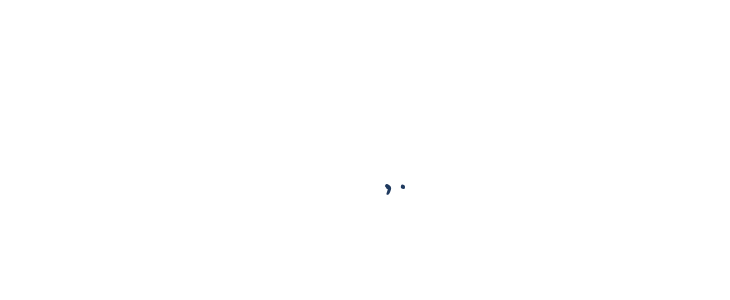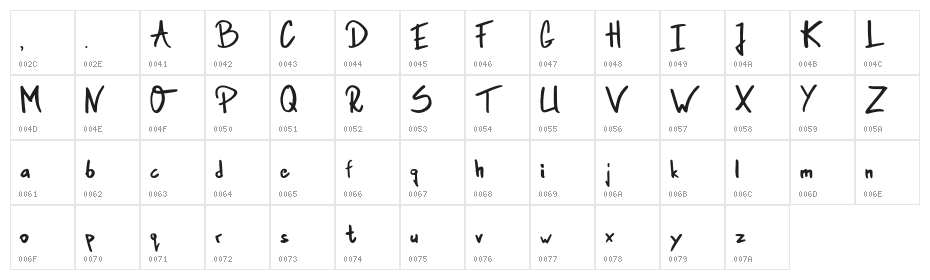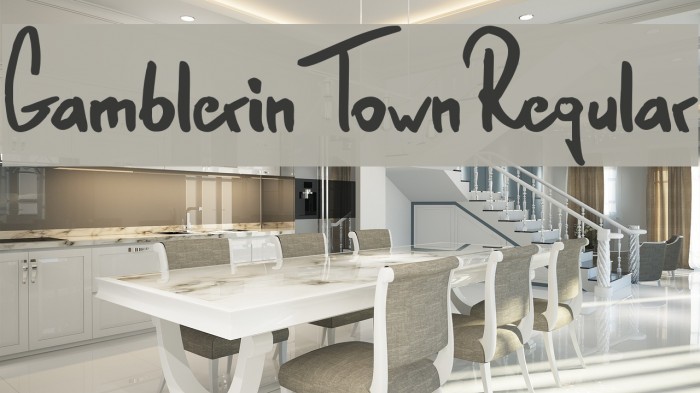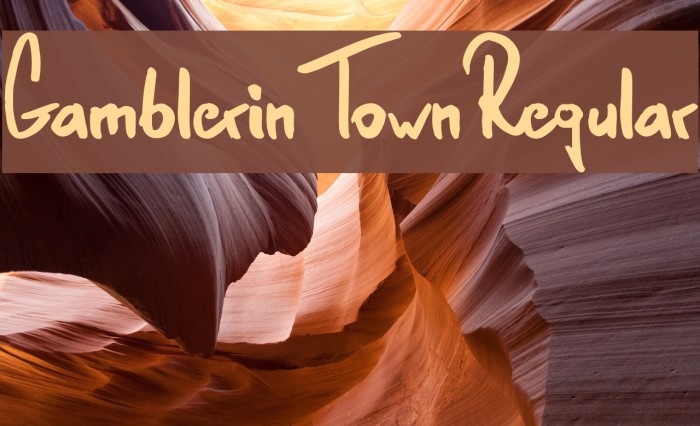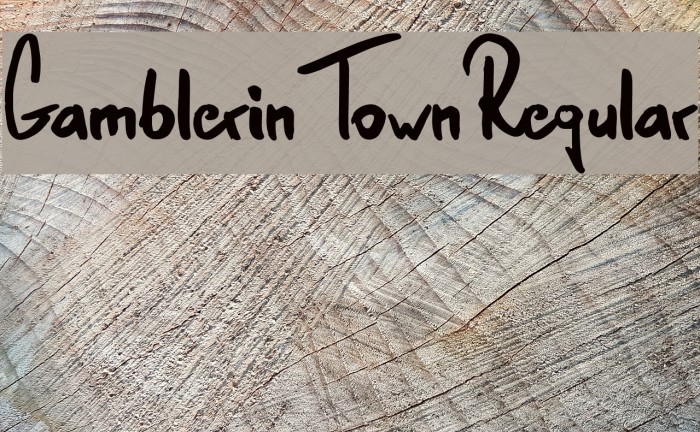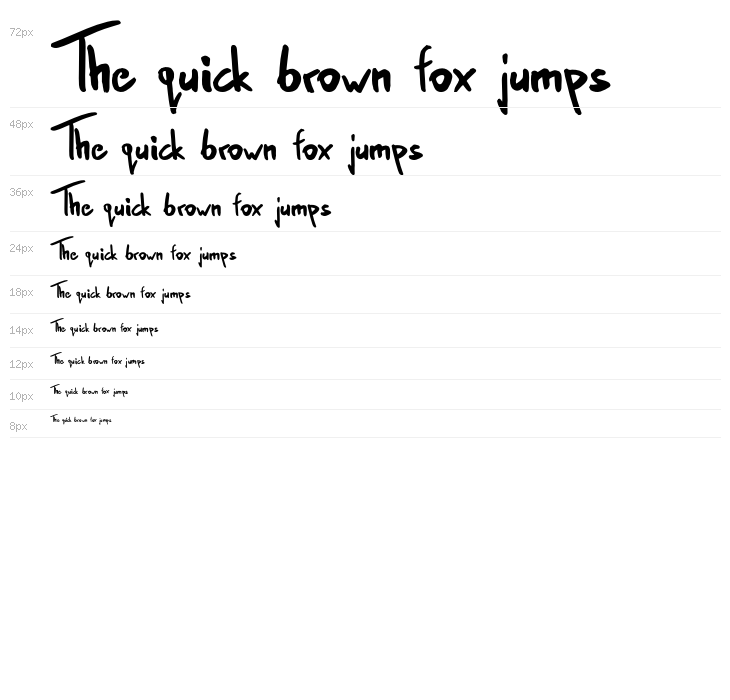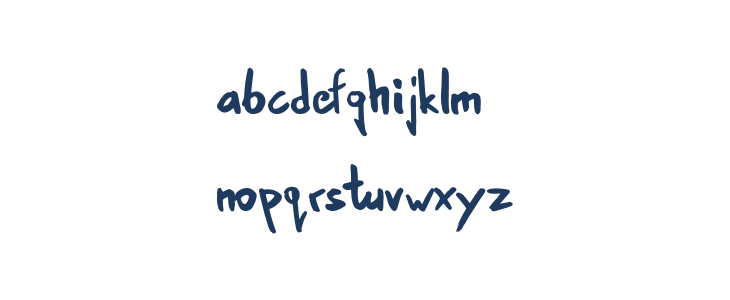
GamblerinTown-Regular Font
GamblerinTown-Regular Description
This font exhibits a playful and energetic handwritten style, characterized by its bold and slightly irregular strokes. The uppercase letters are tall and dynamic, with a sense of movement that adds a lively touch to any design. The lowercase letters maintain a consistent flow, complementing the uppercase with their rounded and approachable forms. The font's overall appearance is casual yet impactful, making it suitable for designs that aim to convey a sense of fun and creativity. The spacing between characters is relatively tight, enhancing the cohesive look of the text. Its unique style makes it stand out, perfect for projects that require a personal and informal touch.
| Proposed Projects | Ideal for greeting cards, playful branding, children's books, and creative posters. |